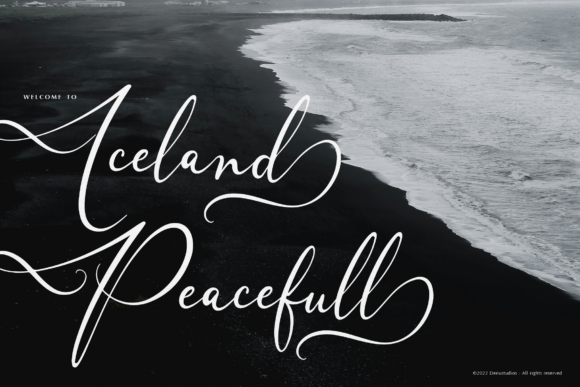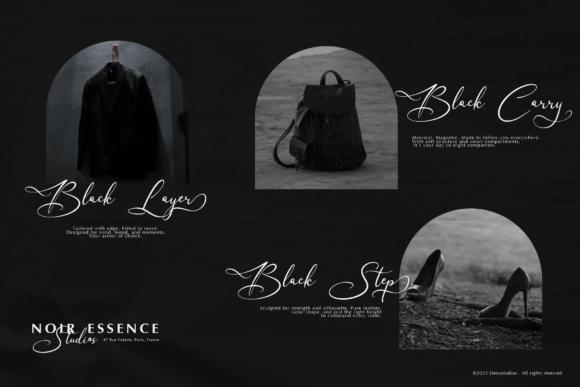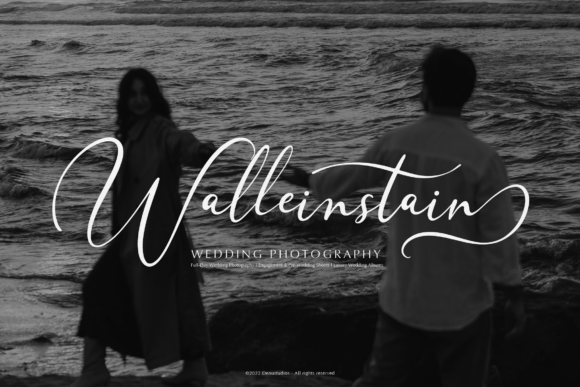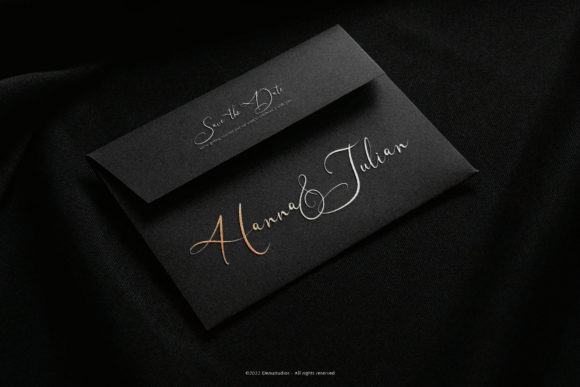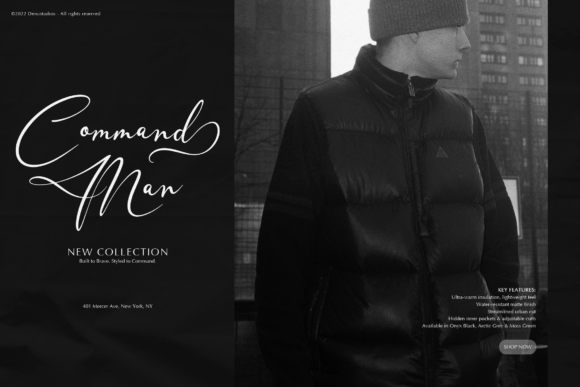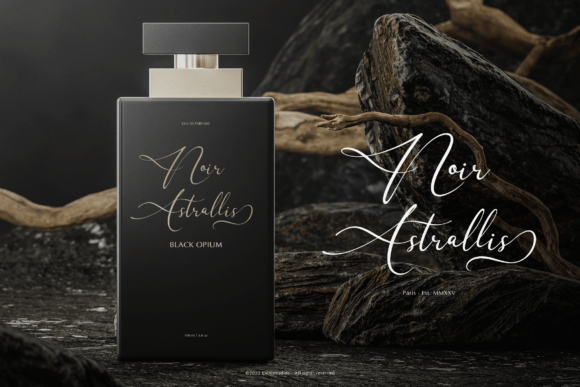
Balinesty Font: Elevate Your Design with Luxurious Modern Calligraphy
In the world of typography, few fonts capture the essence of luxury and sophistication as effortlessly as Balinesty. This stunning modern calligraphy typeface is designed to bring a touch of elegance and refinement to any design project. With its delicate swashes, refined script curves, and extensive feature set, Balinesty is the perfect choice for designers and crafters looking to create high-end branding, wedding invitations, beauty packaging, and editorial headers that exude timeless sophistication.
The Essence of Balinesty: A Luxurious Typeface
Balinesty is more than just a font – it’s an experience. Its luxurious feel is immediately apparent, with intricate swashes and curves that evoke the high-end world of fashion, beauty, and fine dining. This modern calligraphy typeface is designed to add a touch of glamour to any design, making it perfect for projects that require a sophisticated and refined aesthetic.
Key Features of Balinesty
So, what sets Balinesty apart from other fonts? Here are just a few of its key features:
• Over 310 glyphs: With a vast range of characters, Balinesty offers immense flexibility to create unique and customized designs.
• Stylish alternates: Switch between different letterforms to add variety and interest to your designs.
• Ligatures: Combine letters to create beautiful, flowing connections that add to the overall elegance of your design.
Perfect for High-End Design Projects
Balinesty is specifically designed for high-end design projects that require a luxurious and sophisticated aesthetic. Here are just a few examples of how you can use Balinesty to elevate your designs:
• Branding: Create a lasting impression with custom logos, business cards, and letterheads that exude luxury and refinement.
• Wedding Invitations: Add a touch of elegance to your wedding stationery with beautifully designed invitations, save-the-dates, and thank-you cards.
• Beauty Packaging: Elevate your beauty brand with luxurious packaging designs that showcase your products in the best possible light.
• Editorial Headers: Add a touch of sophistication to your editorial designs, including magazine covers, article headers, and social media graphics.
Why Choose Balinesty?
With so many fonts available, why choose Balinesty? Here are just a few reasons why designers and crafters love this luxurious typeface:
• Unique and distinctive: Balinesty stands out from the crowd, offering a unique and distinctive look that will set your designs apart.
• Highly versatile: With its extensive feature set and range of glyphs, Balinesty can be used for a wide range of design projects.
• Elegant and refined: This font is designed to add a touch of luxury and sophistication to any design, making it perfect for high-end projects.
Get Creative with Balinesty
Ready to elevate your designs with Balinesty? Here are a few tips to get you started:
• Experiment with different swashes: Try out different swashes and ligatures to add a unique touch to your designs.
• Mix and match letterforms: Use Balinesty’s stylish alternates to create interesting and varied designs.
• Pay attention to spacing: Take care to adjust the spacing between letters to create a beautiful, flowing design.
With Balinesty, the possibilities are endless. Whether you’re a designer, crafter, or DIY enthusiast, this luxurious modern calligraphy typeface is sure to inspire your next creative project.